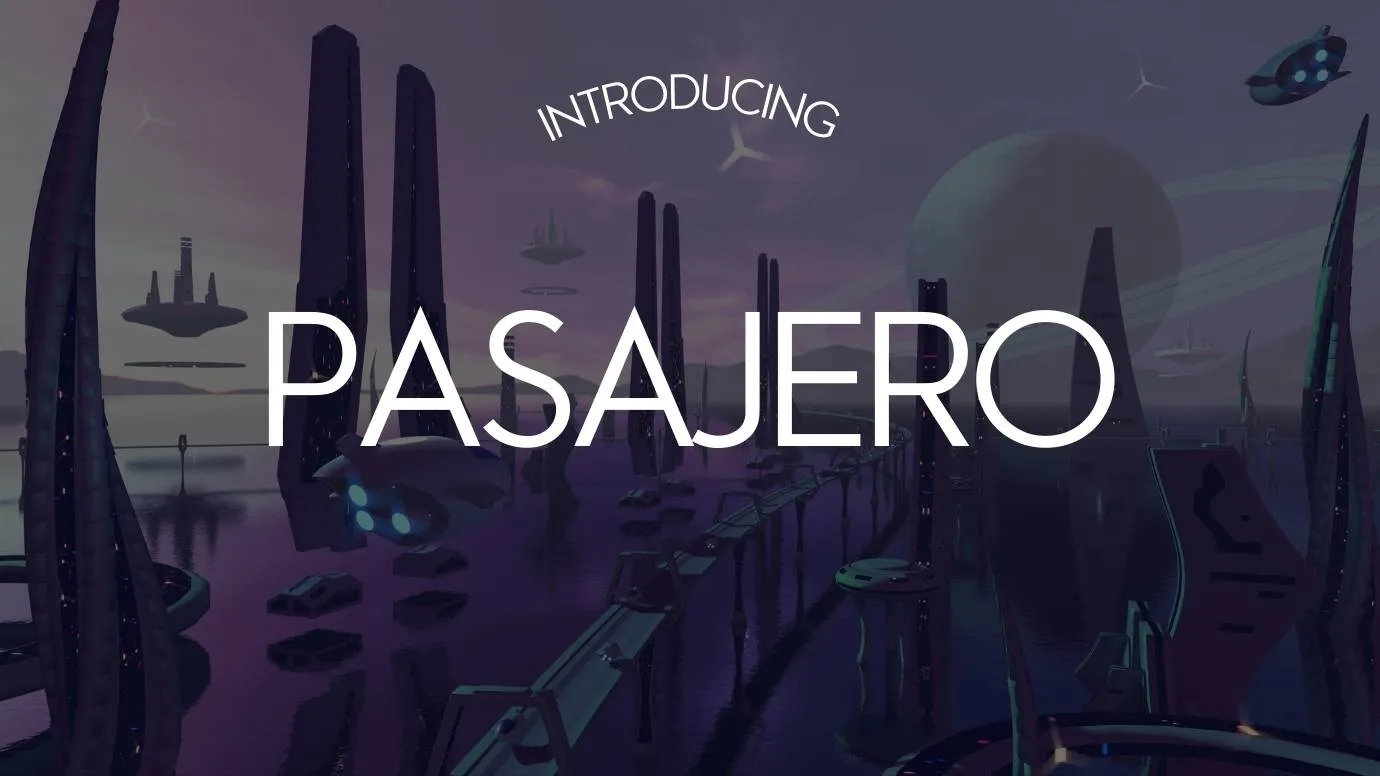
Pasajero Font Family falls in the category of the sans-serif font family. This font family has beautiful thin and unique glyphs. This eye-catching font is popular for its outstanding features and stylistic alternates that are best for unique design purposes.
Pasajero Font which is a classic font developed by Franco Fernández. This typography was mainly designed for the logo of a famous thriller movie which is released in America for the first time and directed by Jaume Ruiz Arbeloa.